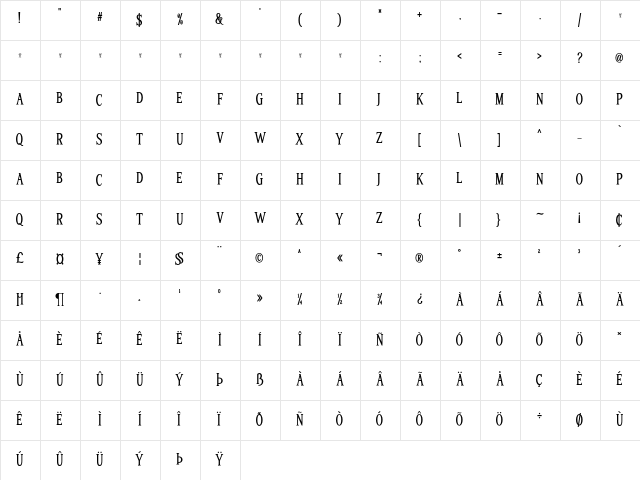
Chadlershire demo Regular
| Foundry | uncurve |
| Designer | Letras Supply |
Design Context for Chadlershire demo Typeface
Chadlershire demo offers clean, dependable letterforms without strong stylistic allegiance, making it a practical choice for designers who need flexibility.